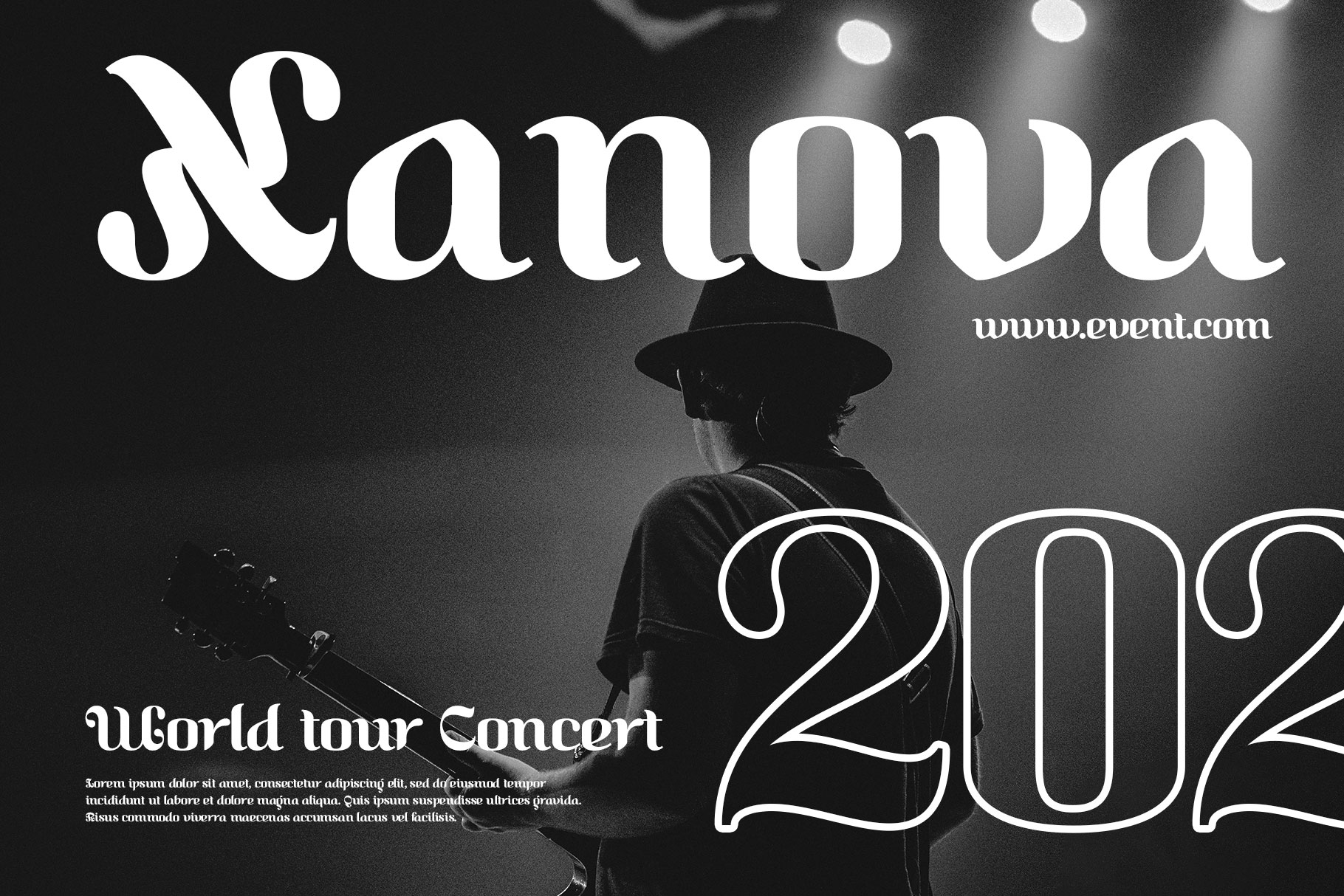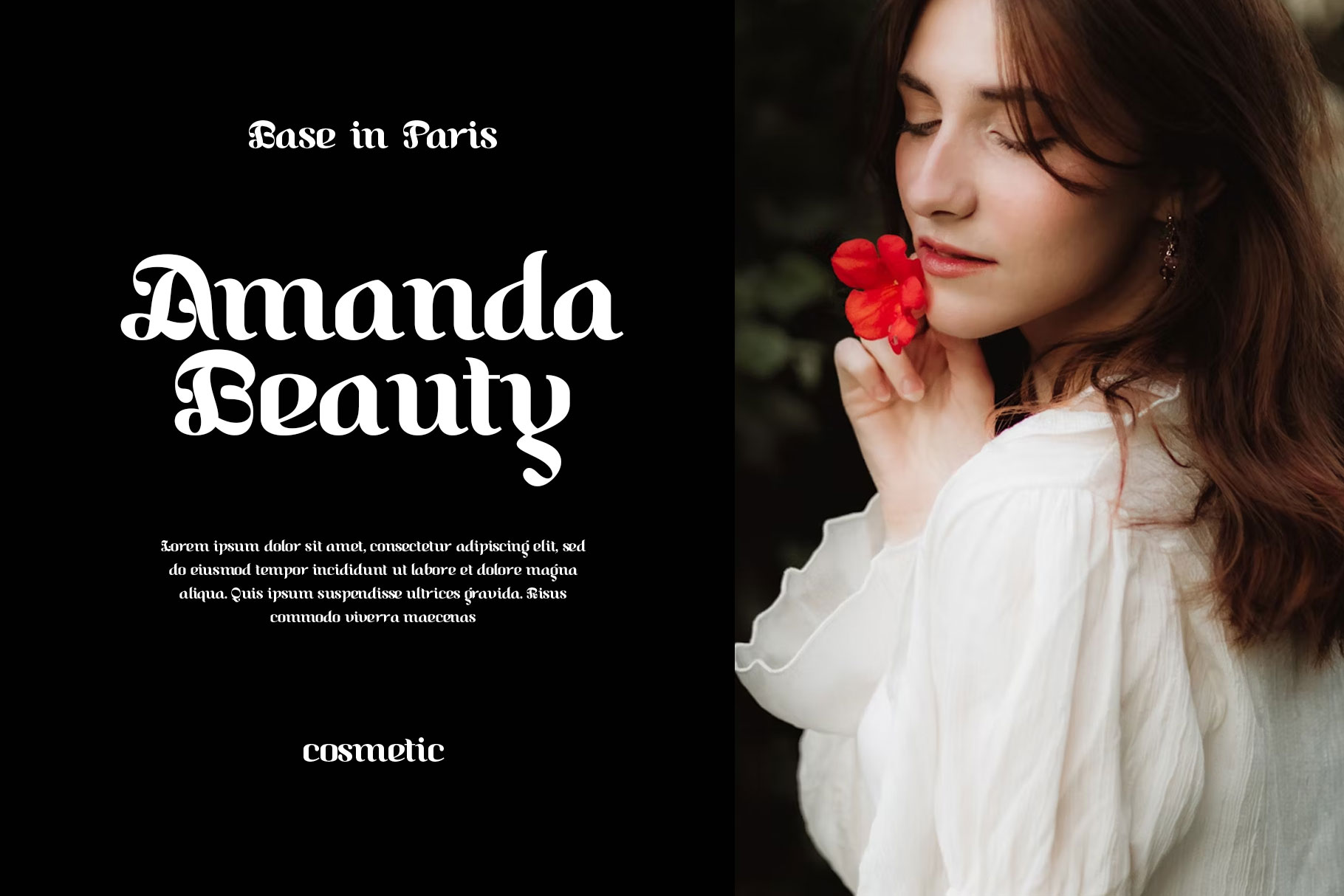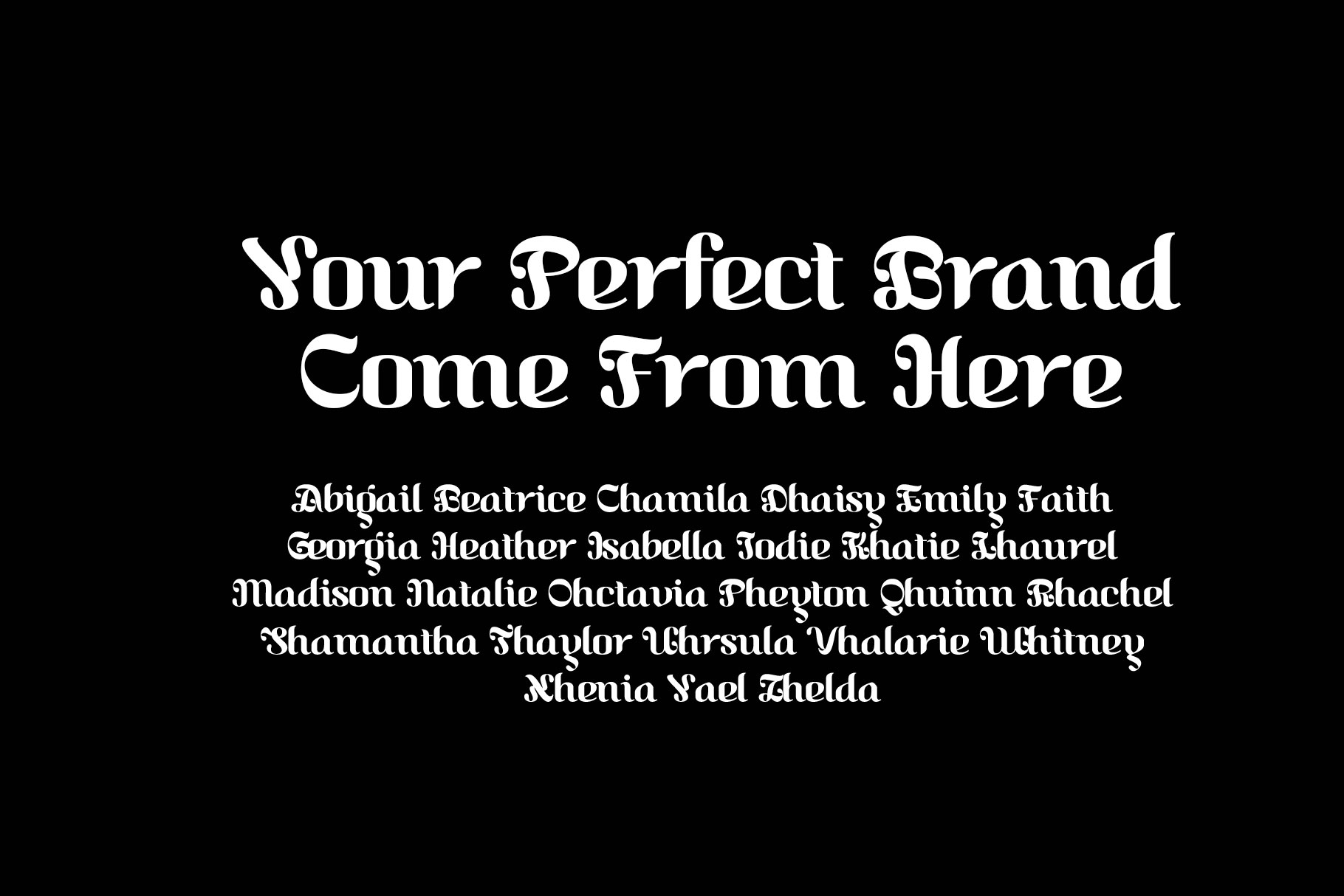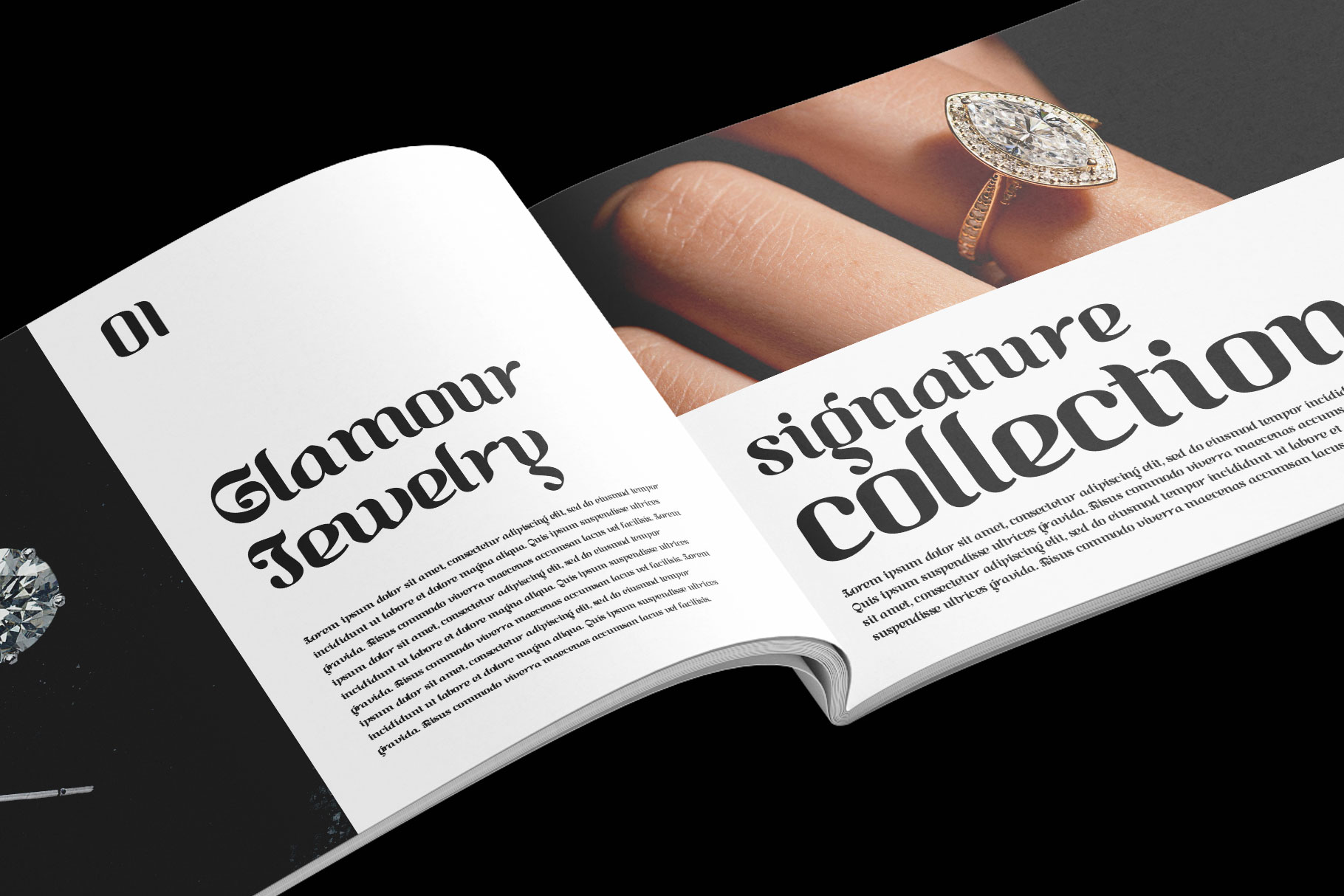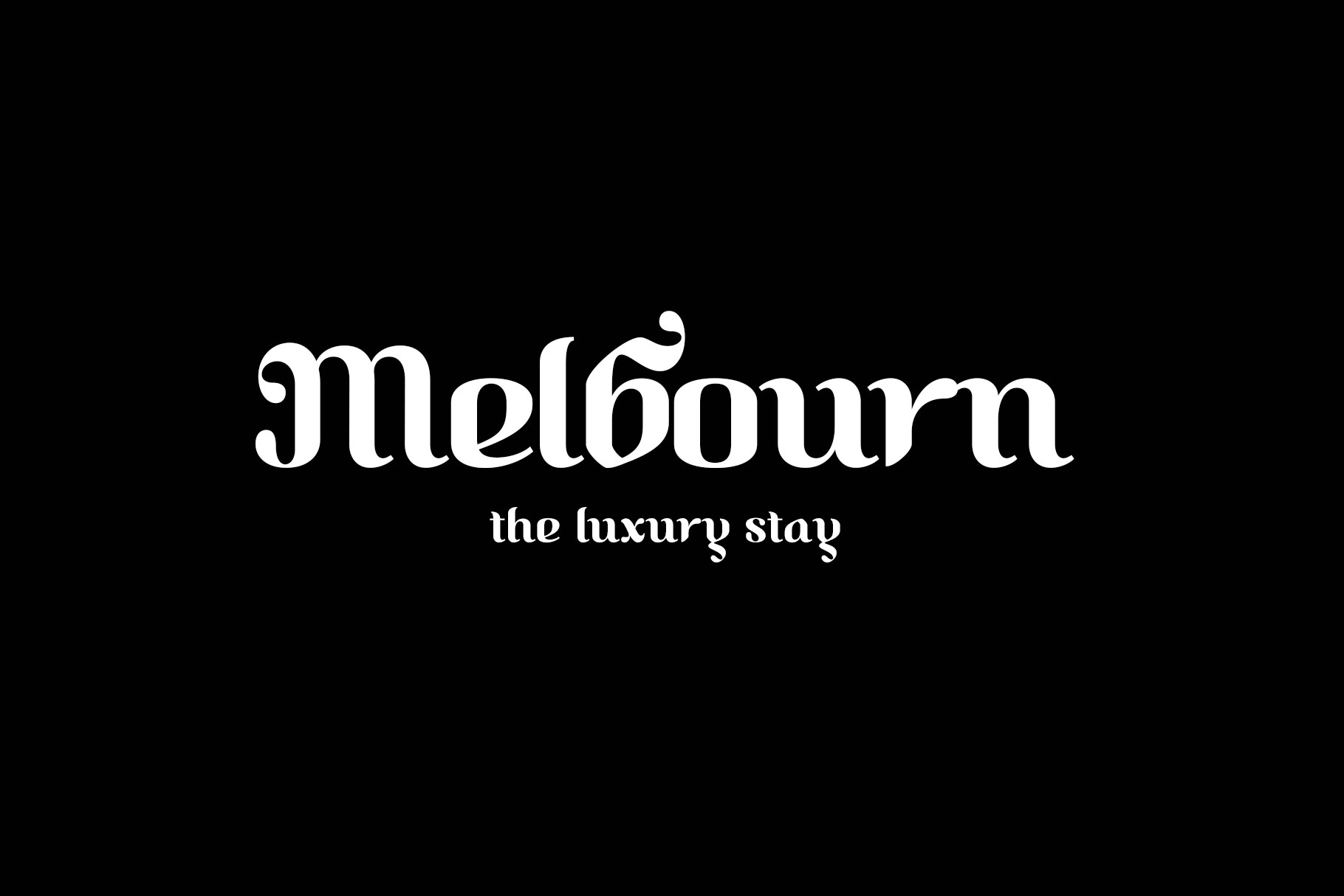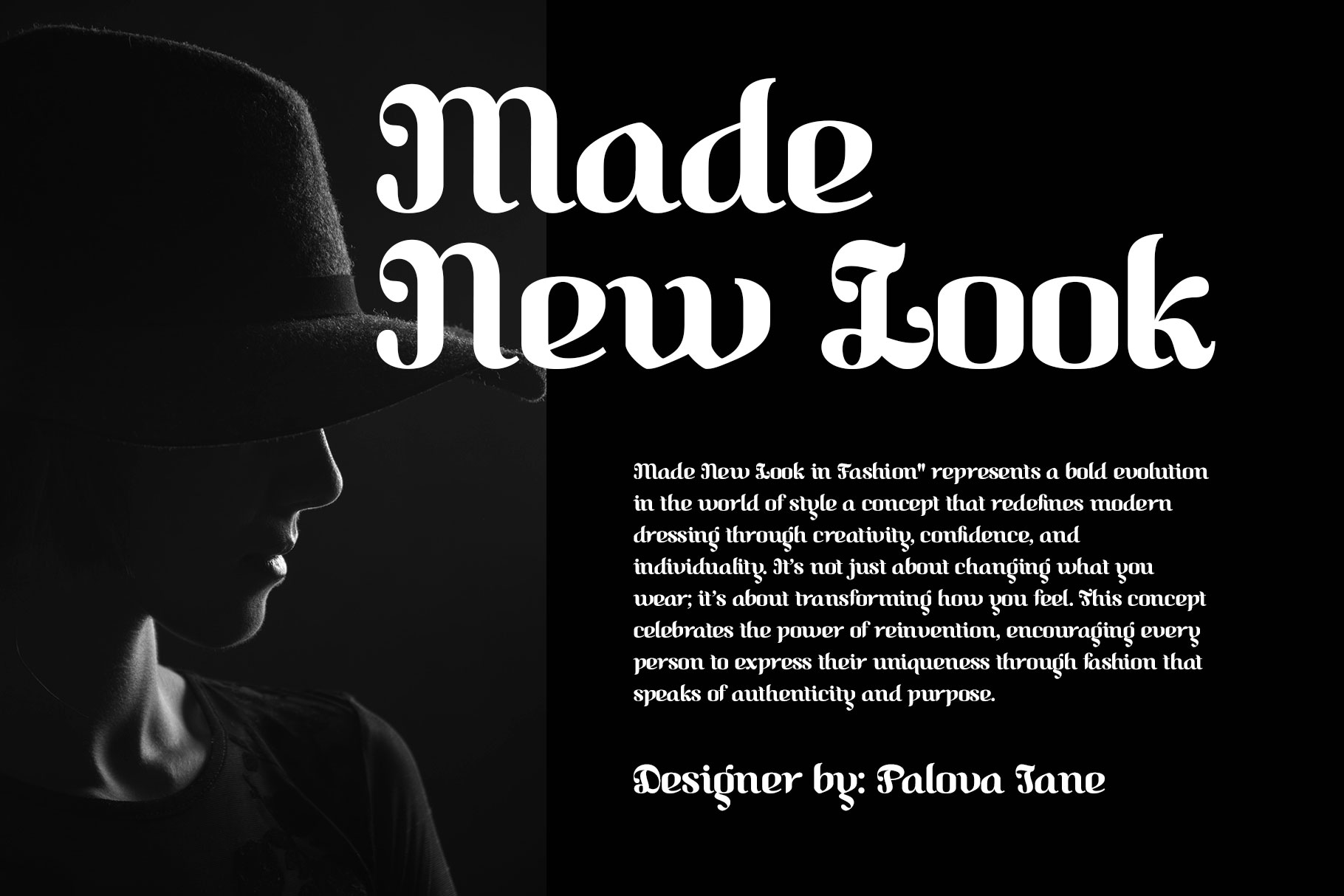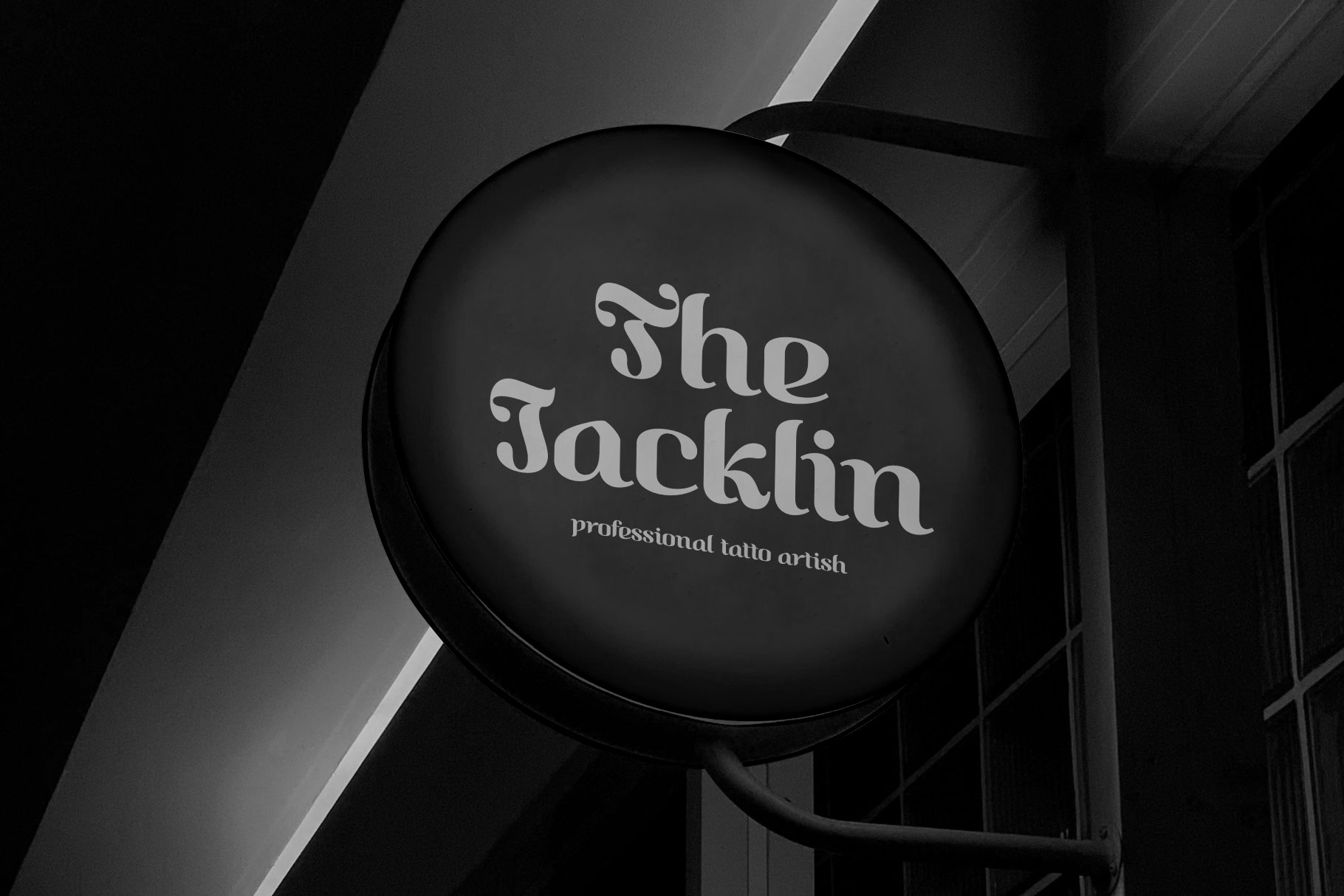
Gadesly Elegant Display Font
Gadesly is elegant display font inspire by blackletter character. Gadesly is a perfectly choice for any creative endeavor, creating, modern, lifestyle design such as logotype, title, cover, branding, invitations, wedding designs, display and magazine, social media posts, advertisements, printed quotes, product packaging, corporate brand, product designs, labels, photography, watermarks, special events and any other project with modern touch.